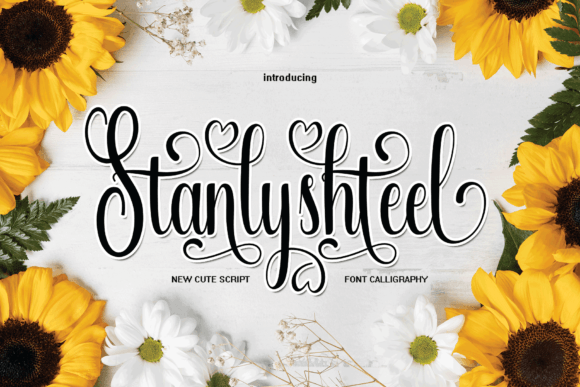
Step into a world of elegance and sophistication with our exclusive Stanlyshteel script font. Created by the esteemed MYdesign, this remarkable font breathes life into your creative visions, transforming them into masterpieces.
Stanlyshteel's exquisite cursive letterforms dance across your digital canvas, captivating your audience with their fluid grace and charm. Experience the seamless flow of each character, as they intertwine to create a visually enchanting tapestry of words.
With Stanlyshteel by your side, craft wedding invitations that radiate timeless beauty and inspire hearts. Design greeting cards that carry the warmth of your sentiments, leaving an indelible mark on the recipients' souls. Embark on design projects that demand a touch of class and elegance, and watch as Stanlyshteel elevates your creations to new heights.
Unleash your imagination and let Stanlyshteel work its magic. Its versatility knows no bounds, bending to your every creative whim. Whether you're crafting logos that exude professionalism, posters that command attention, or social media graphics that spark engagement, Stanlyshteel will be your trusted companion, guiding you towards design brilliance.
Beyond its aesthetic appeal, Stanlyshteel boasts practical features that streamline your creative process. PUA encoding grants you effortless access to a treasure trove of glyphs and swashes, empowering you to add intricate details and embellishments to your designs. Experiment with different combinations, discovering hidden gems that bring your vision to life.
Embrace the allure of Stanlyshteel today and unlock a world of creative possibilities. Immerse yourself in its captivating essence, allowing your imagination to soar. Let Stanlyshteel be your muse, transforming your digital dreams into tangible works of art.